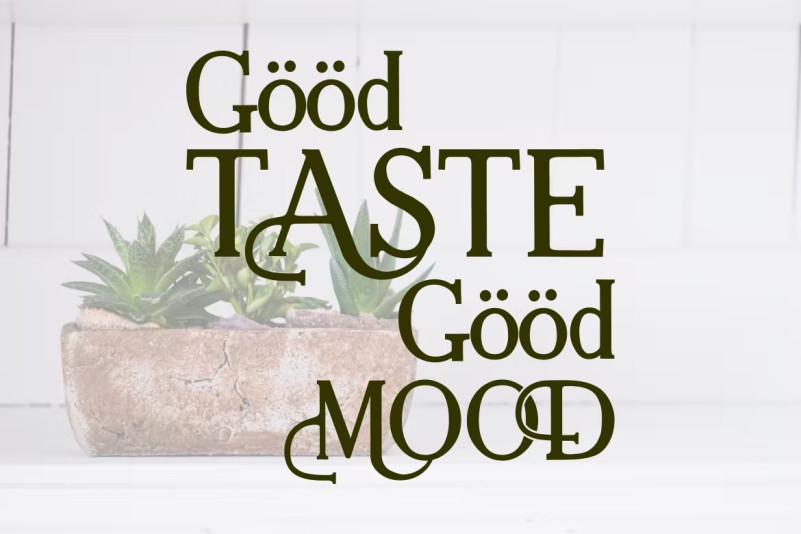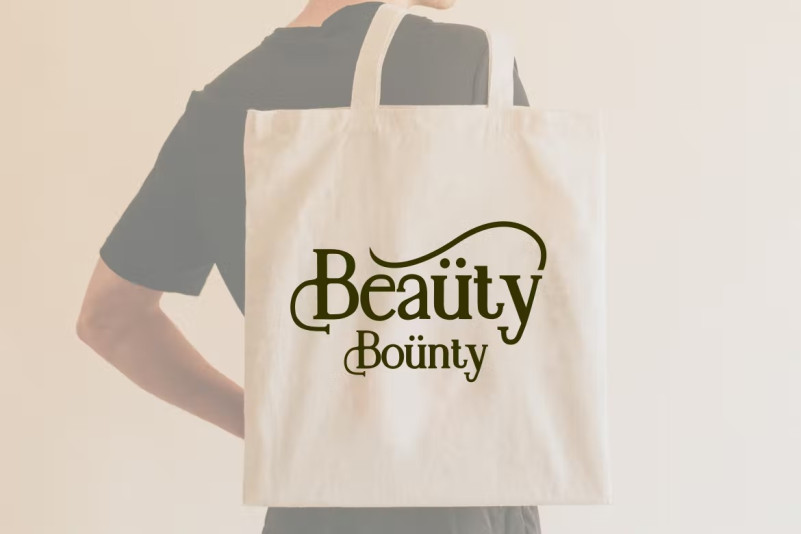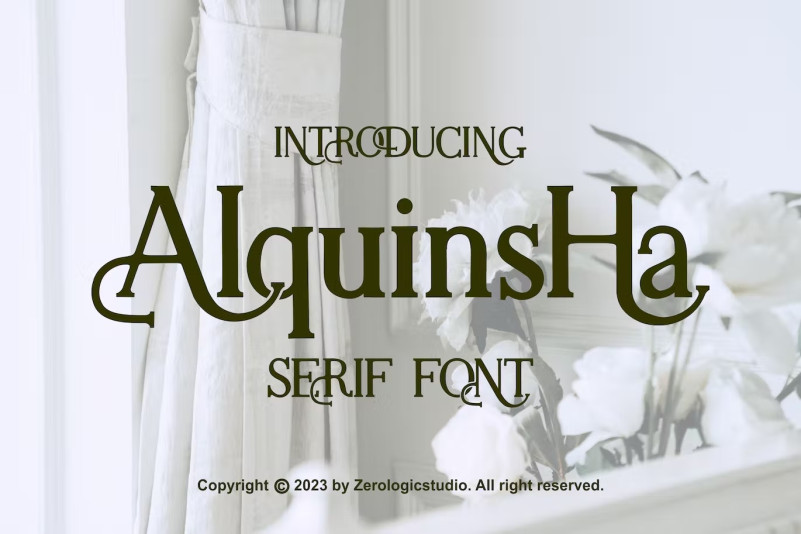
Alquinsha Font
Alquinsha Font is a modern serif font that we designed with a quirky twist to suit your needs. This cool font is complete with uppercase, lowercase, numbers, and symbols. This very strong and precise font is perfect for headings, typography, posters, magazines, brochures, packaging, websites and much more for your design needs to make your designs more interesting.